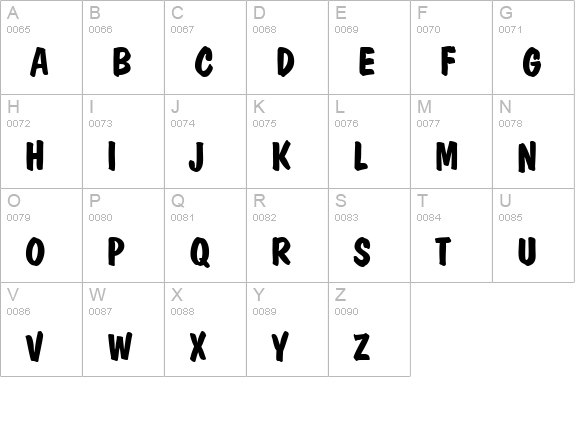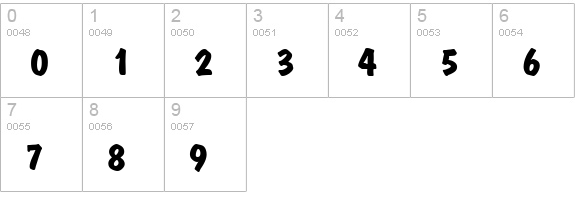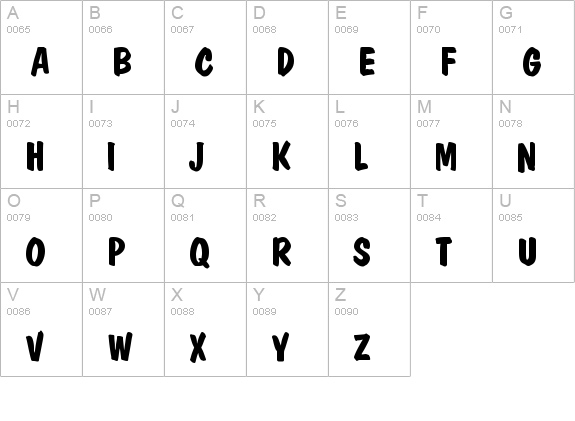
DomCasualD Bold Font Details
DomCasualD Bold is a strong, high-contrast variant in the DomCasualD typeface family \xE2\x80\x94 well suited to headlines, attention-grabbing titles, and strong calls-to-action.
DomCasualD Bold font is a striking and bold typeface that commands attention with its unique style and strong presence. Perfect for creating eye-catching headlines, posters, logos, and other design projects, this font exudes confidence and personality. With its thick strokes and distinctive letterforms, DomCasualD Bold adds a touch of modern flair to any design. Best of all, DomCasualD Bold font is available for free download at FontsMarket.com, making it easily accessible for designers and creatives looking to enhance their projects with a touch of boldness. Whether you're working on a branding project, a marketing campaign, or simply looking to add a bold statement to your designs, DomCasualD Bold font is the perfect choice. Download it today and let your creativity shine with this dynamic and impactful typeface.